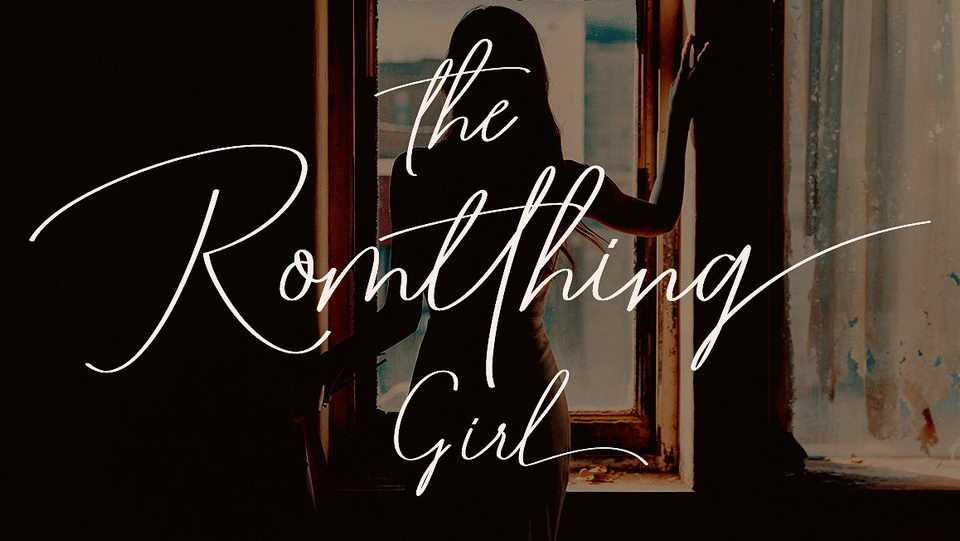
Download Romtthing Girl font, a simple and stylish script that comes with elegant variations. Romtthing Girl font looks elegant, classy, readable, catchy and easy to use.